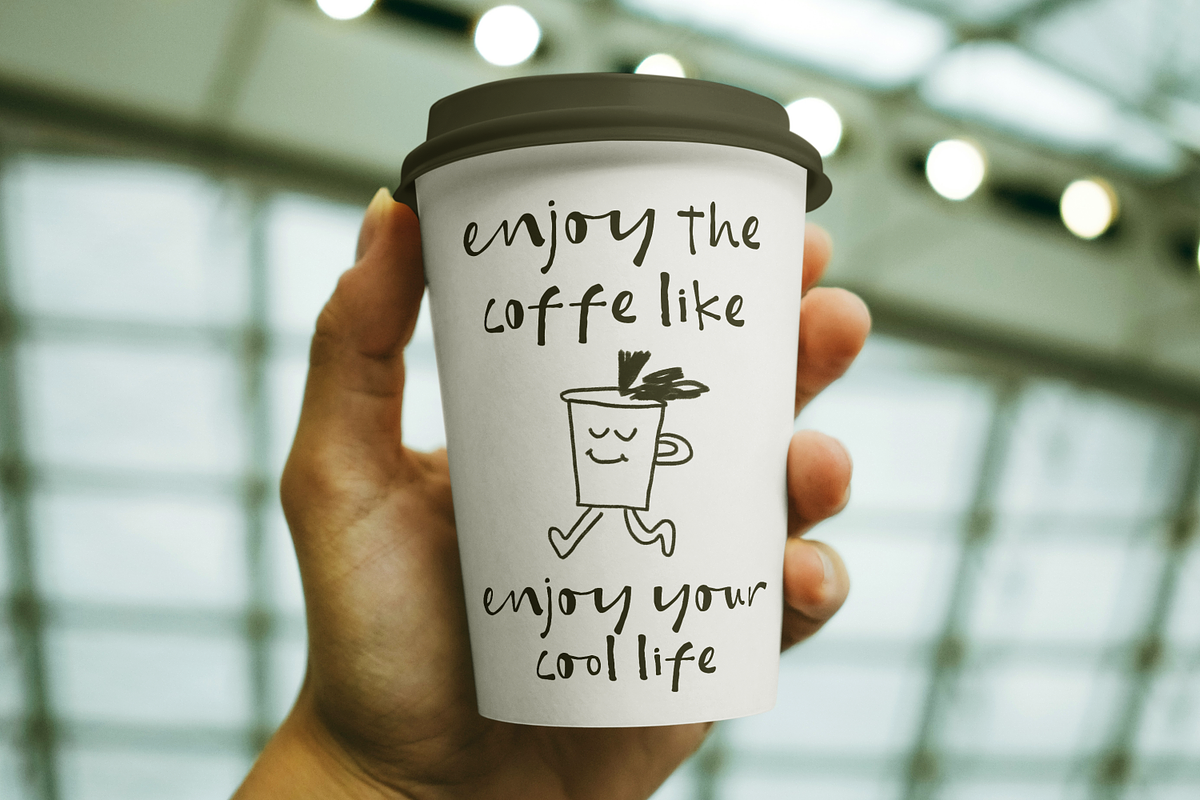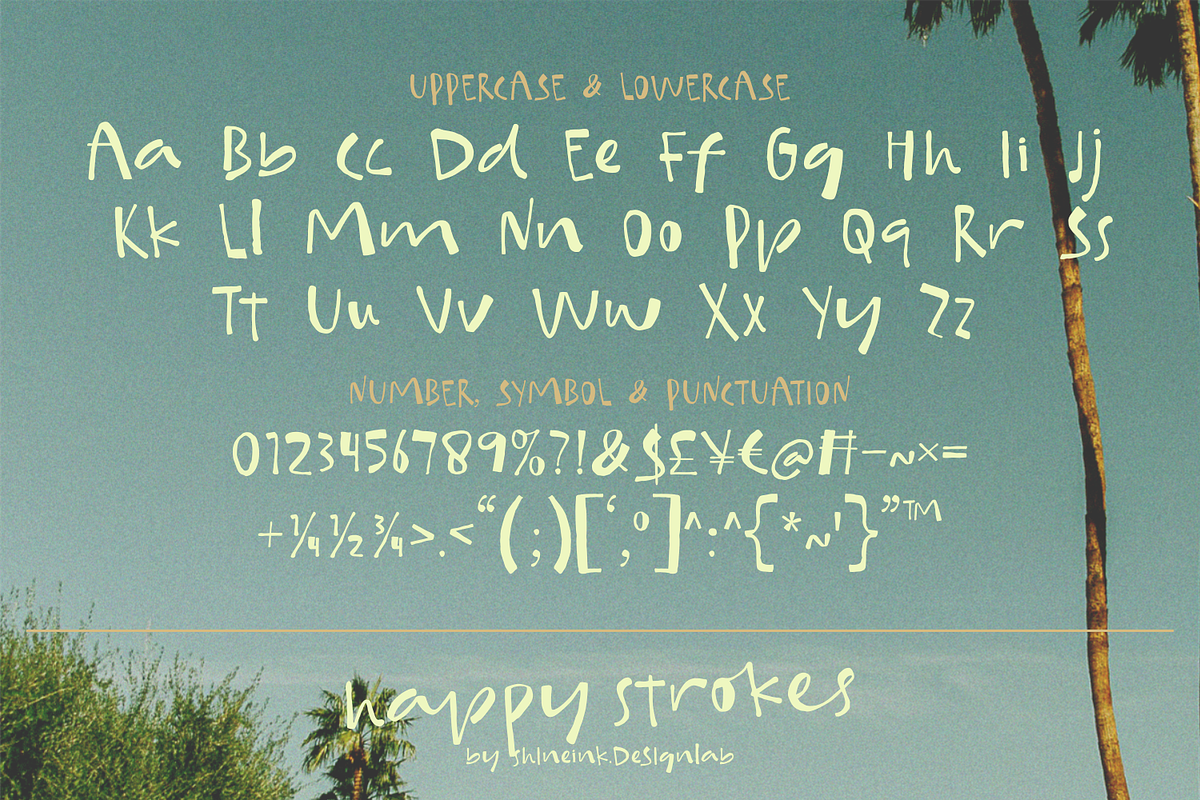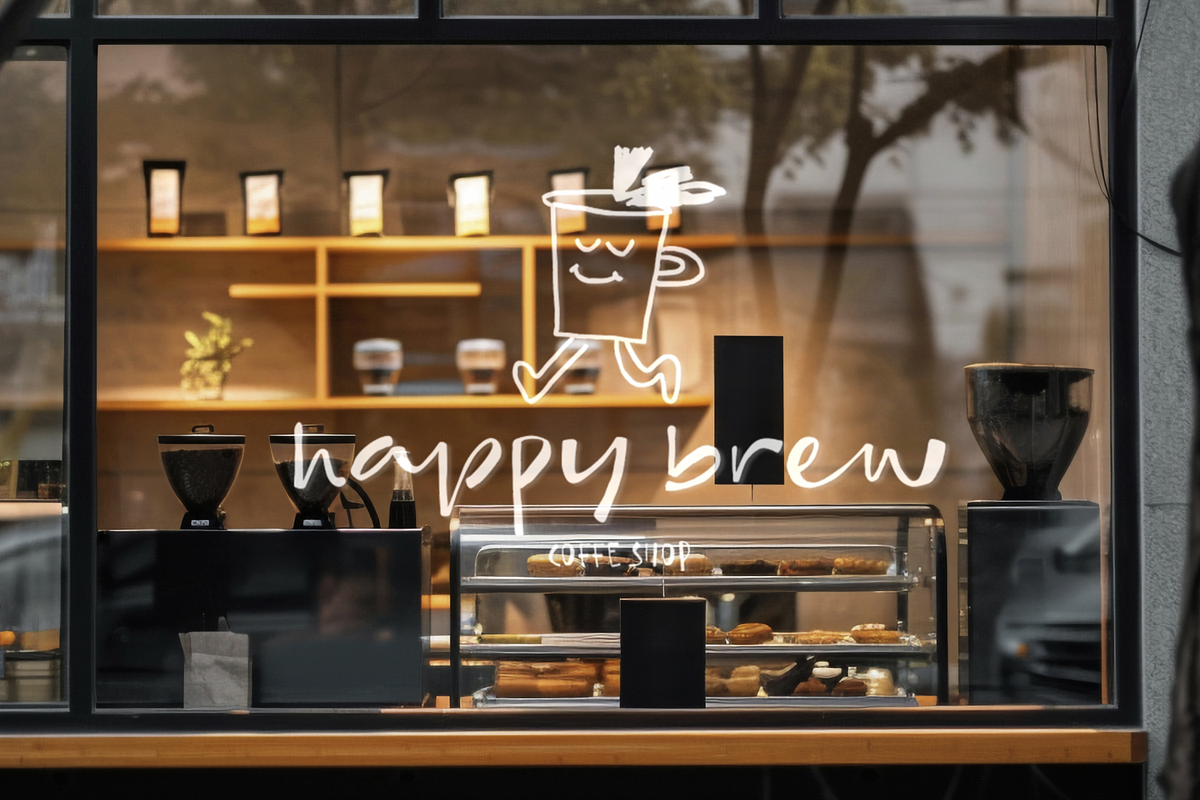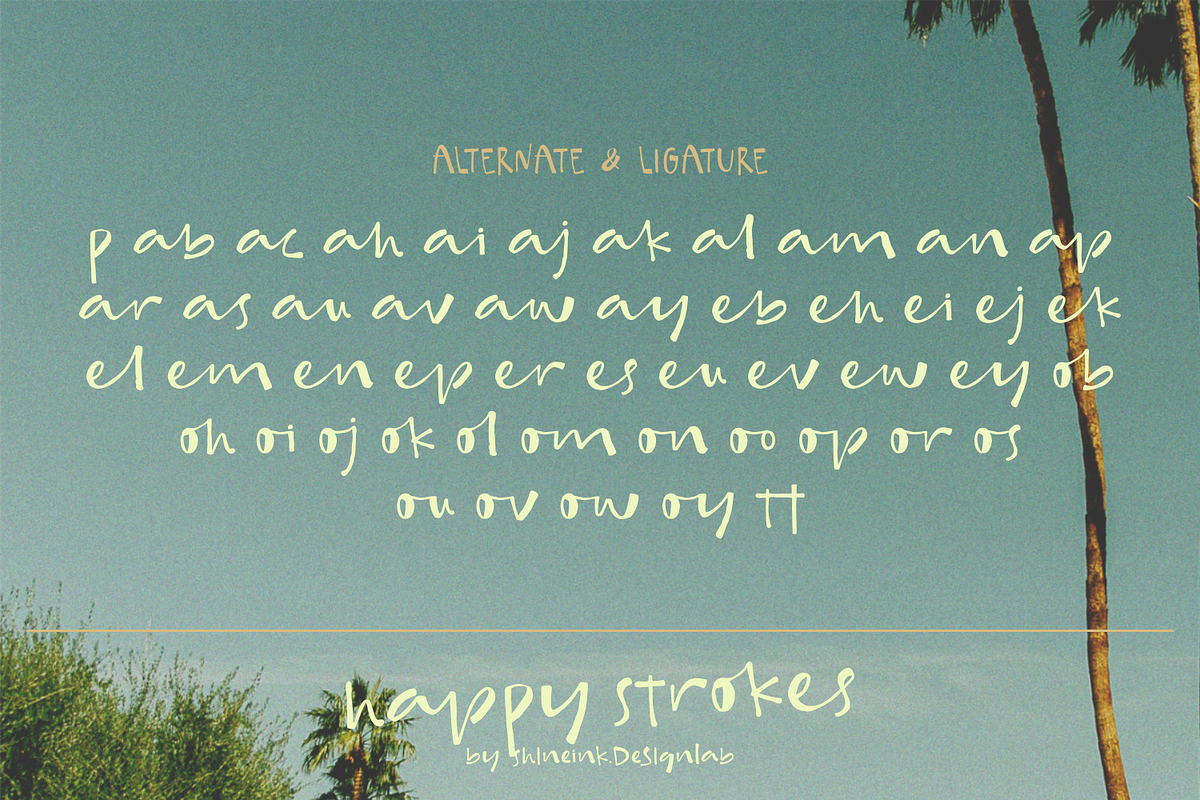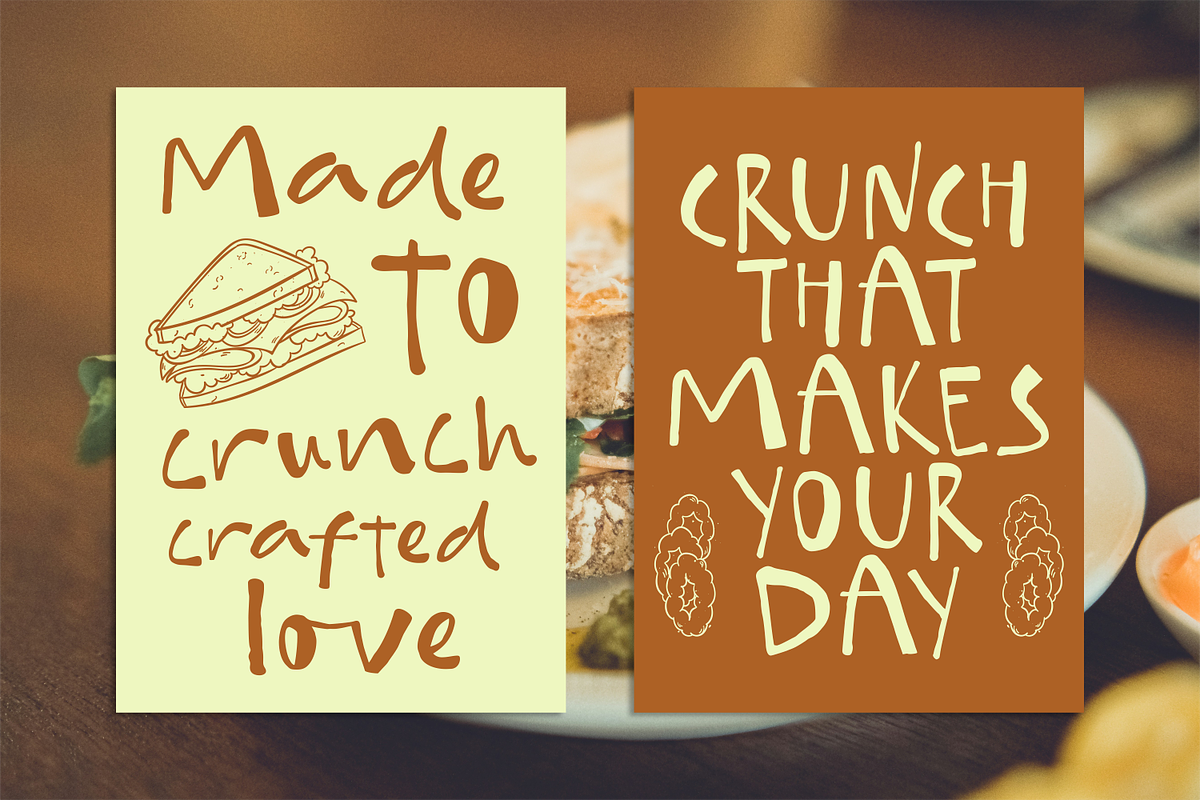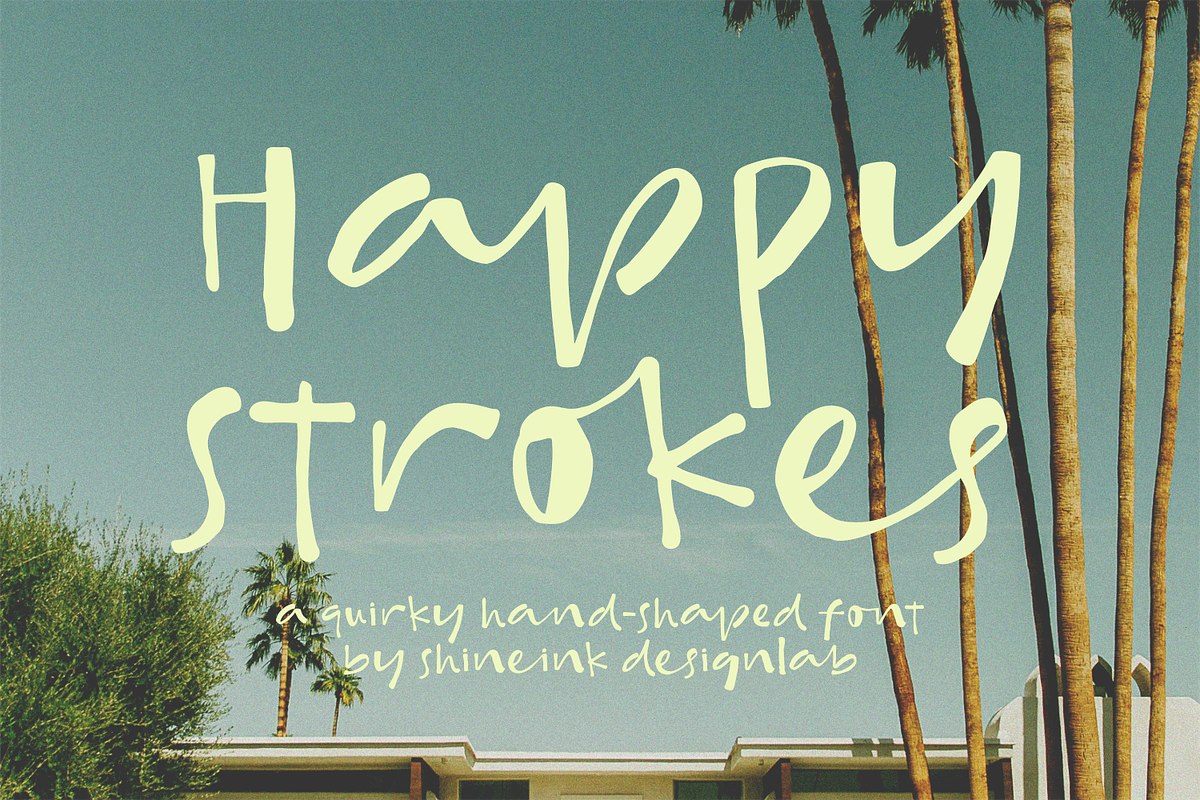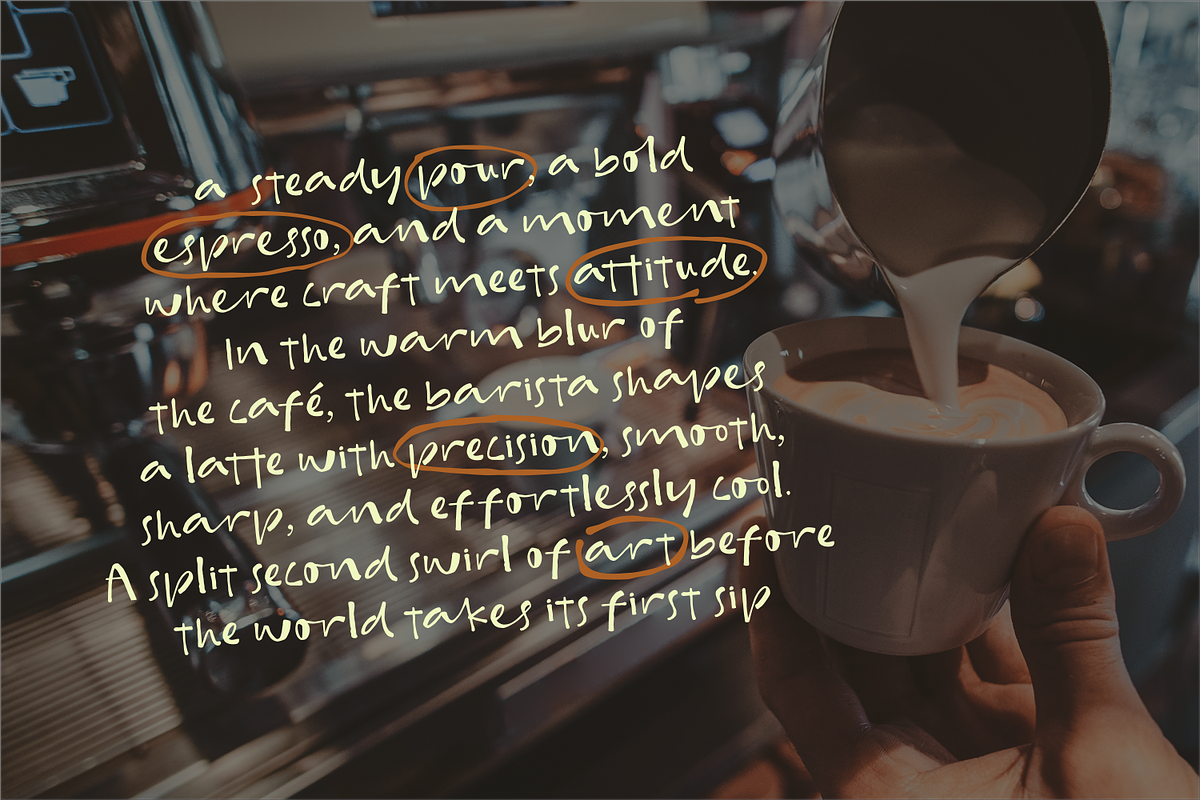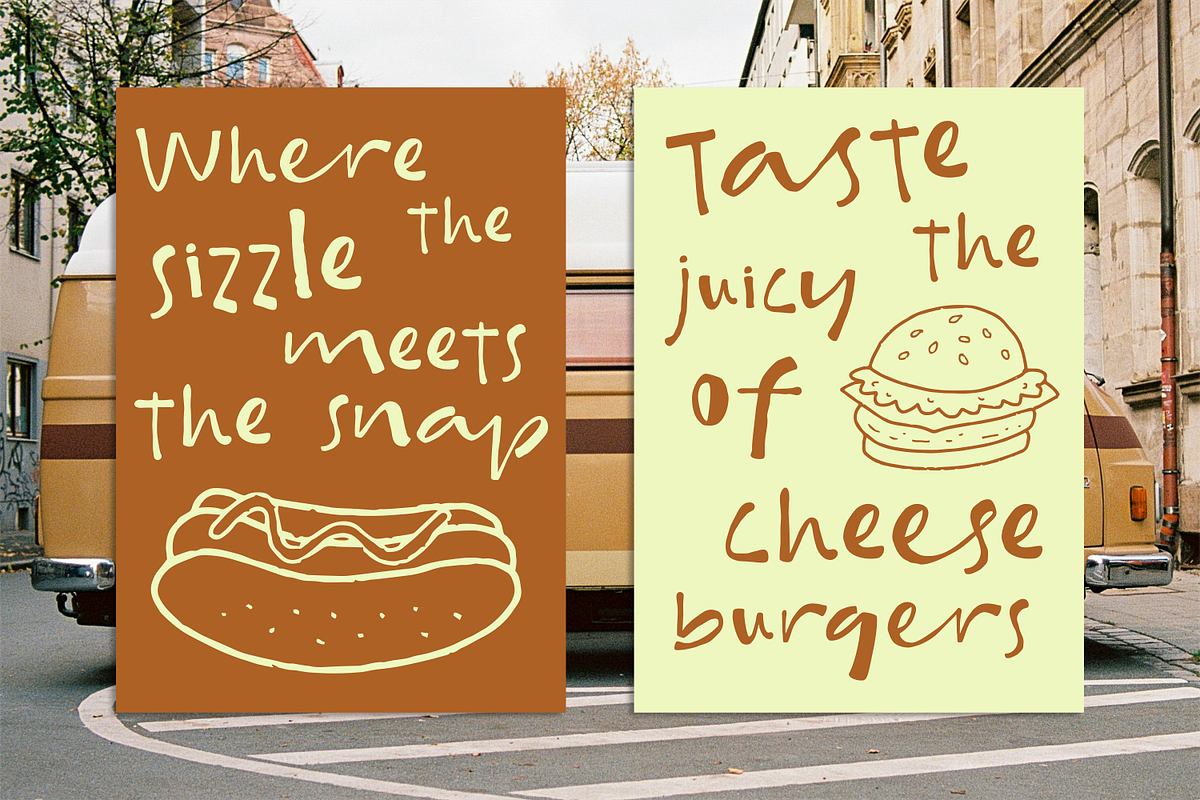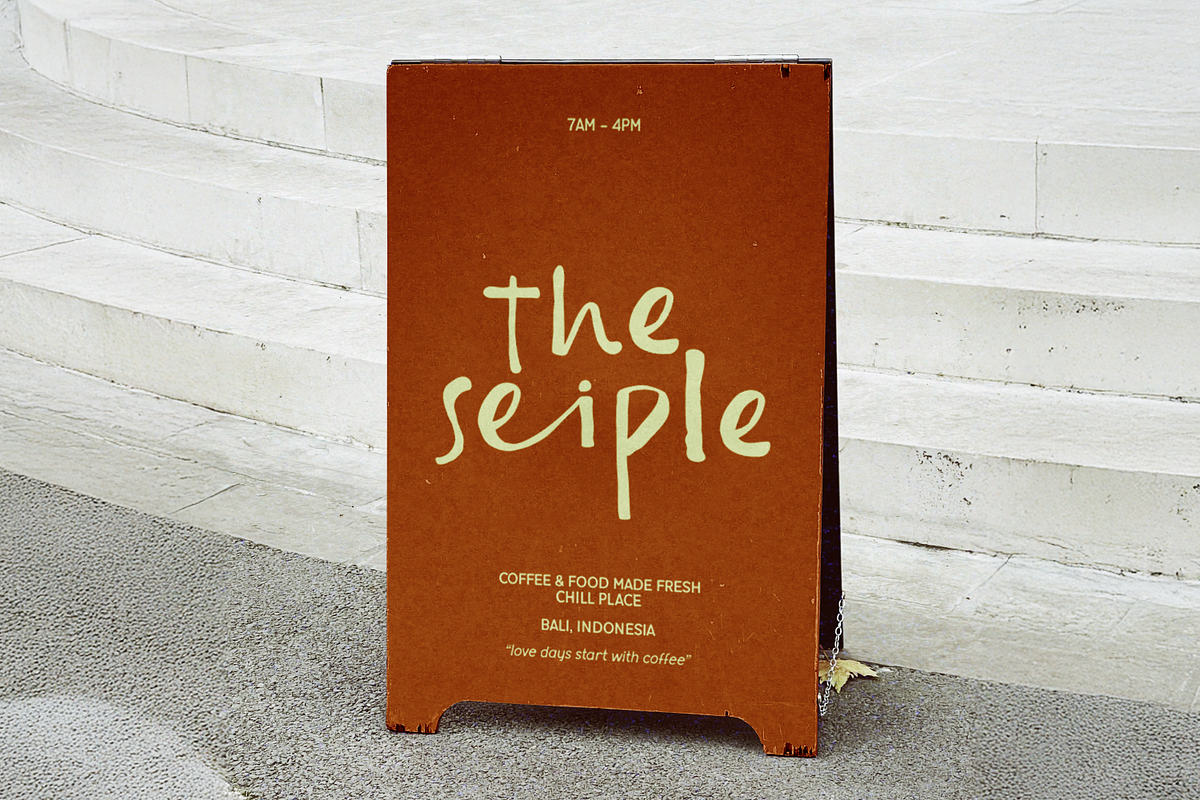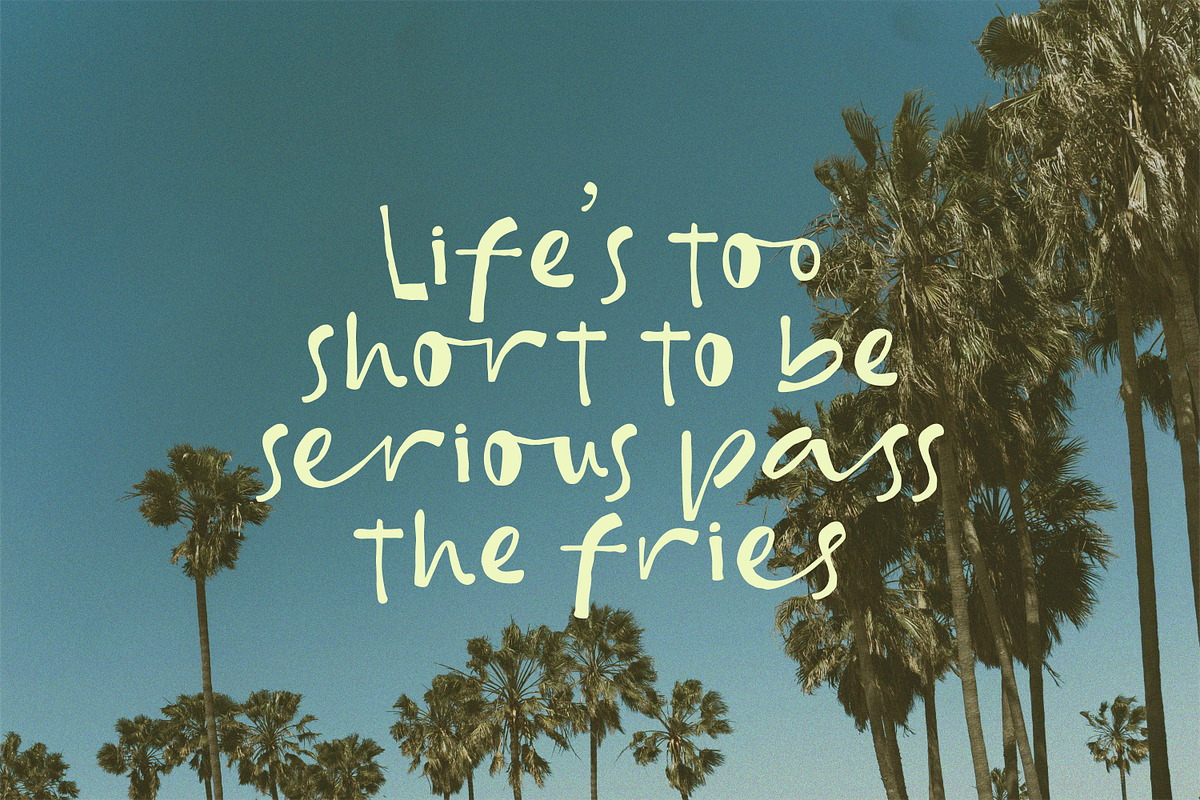
Happy Strokes
I'm present to you, a quirky hand - shaped font, called Happy Strokes!
Happy Strokes is a playful, hand-shaped font designed with natural, free-flowing strokes. Its slightly quirky and imperfect look gives every letter a warm, human touch—perfect for creative branding that wants to feel friendly, unique, and memorable.
With its organic rhythm and spontaneous handwriting vibe, this font brings personality into any design. Happy Strokes captures the charm of real pen-drawn letters, making your visuals feel alive and authentically crafted.
- Lowercase and Uppercase
- Multiple Languages Supported
- Unique Alternate & Ligature